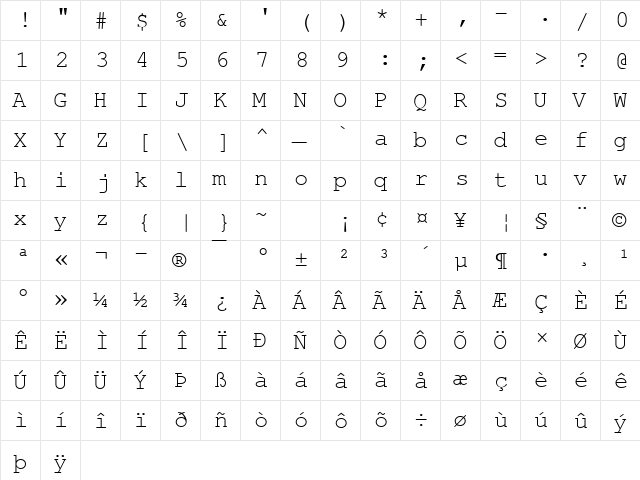
Nimbus Mono L Regular
Design Context for Nimbus Mono L Typeface
Nimbus Mono L brings the precise, column-aligned rhythm of monospaced typography to designs that value technical clarity and systematic order.
Pro Tip: Use Nimbus Mono L with slightly increased line-height for extended reading — fixed-width spacing can feel dense in longer passages without extra breathing room.